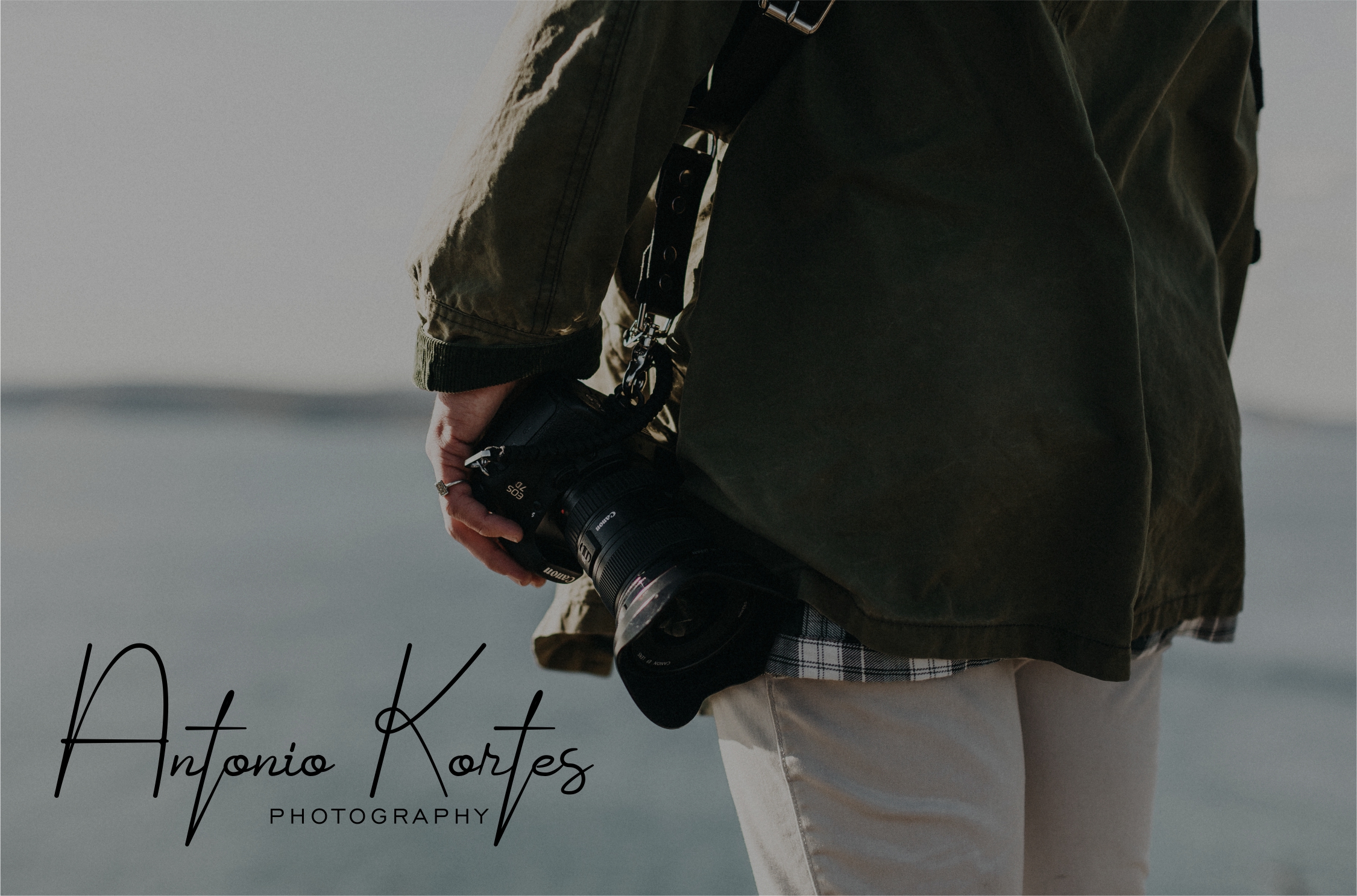
Shellomita Script Font
Shellomita is an elegant and modern signature typeface, suitable for a wide range of display and editorial uses. This script font has a relaxed vibe and can add a hipster appeal to your designs.